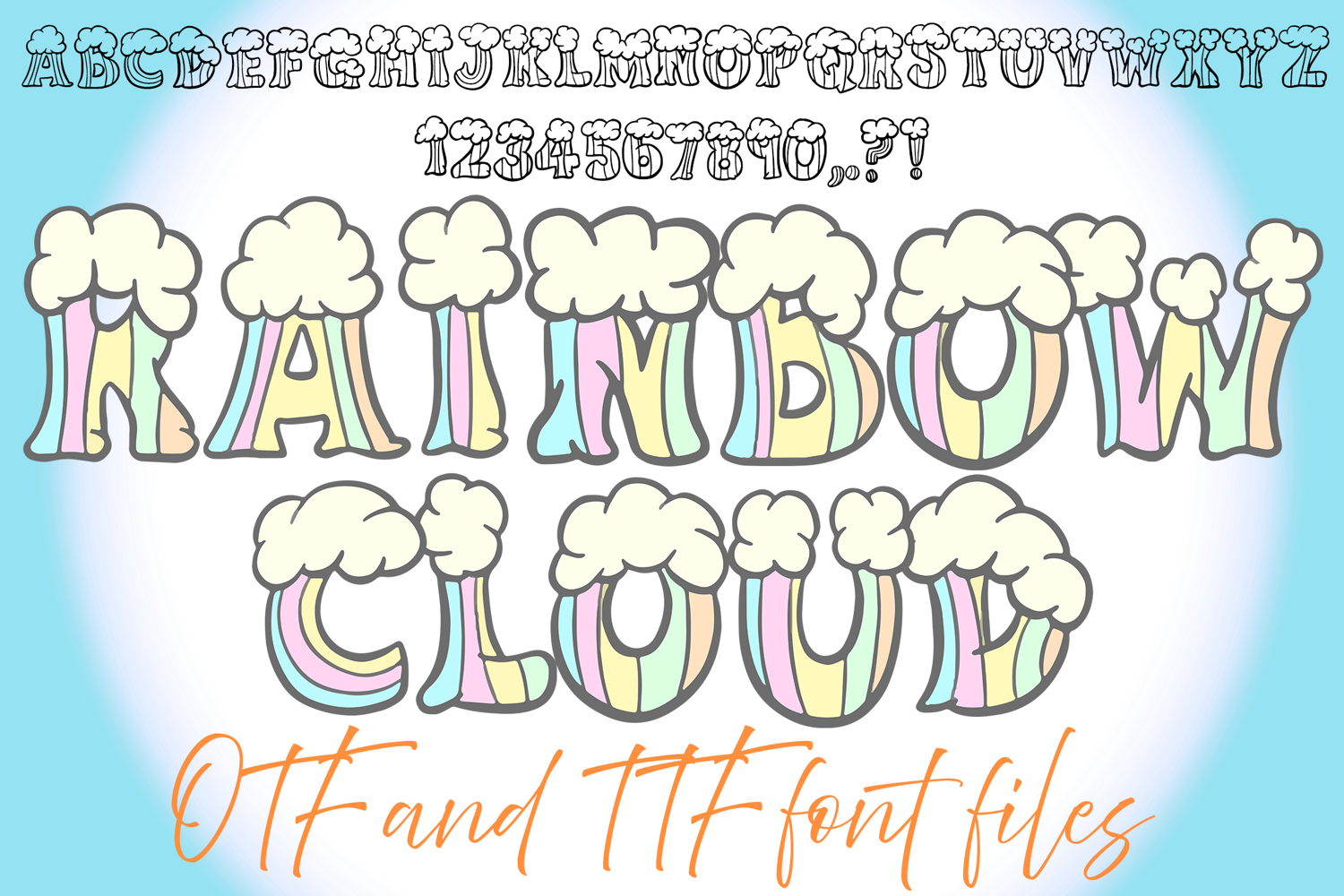
Rainbow Cloud Typeface Lettering ABC Text Font 80s OTF IllustrationÂ
A 80s cartoon style font where you can create your own words and colour them to your vision!